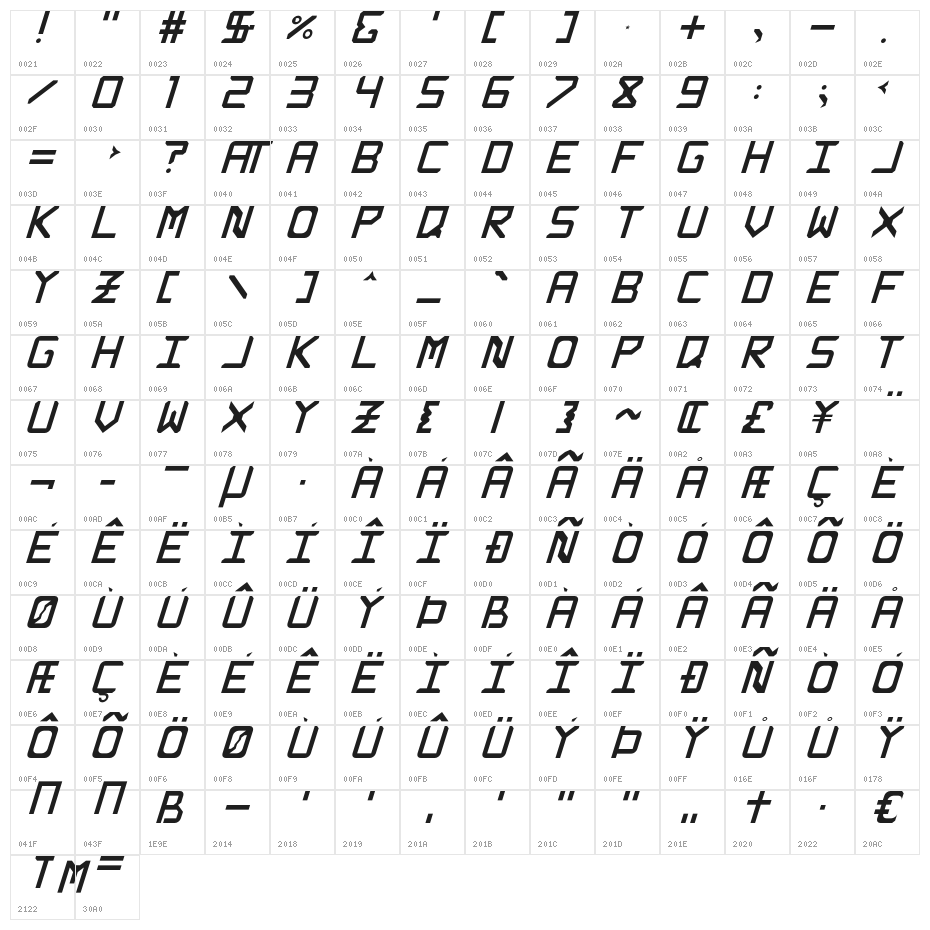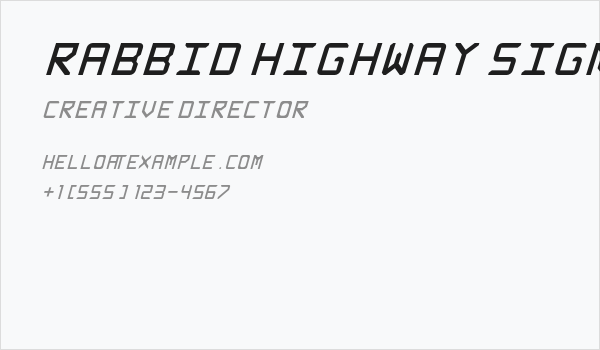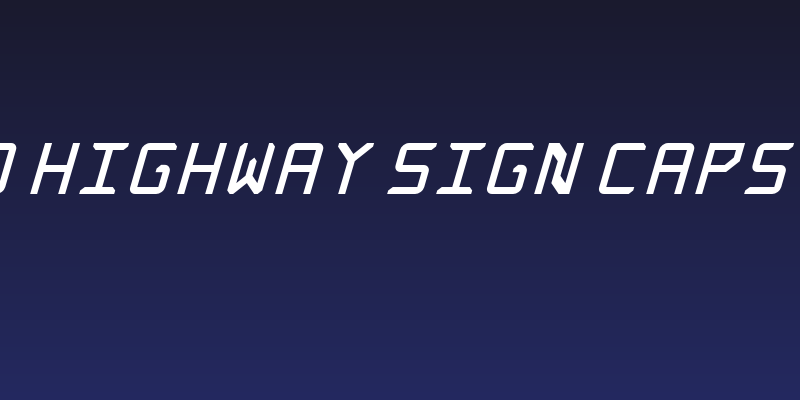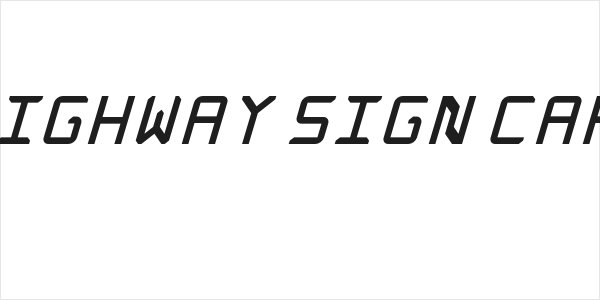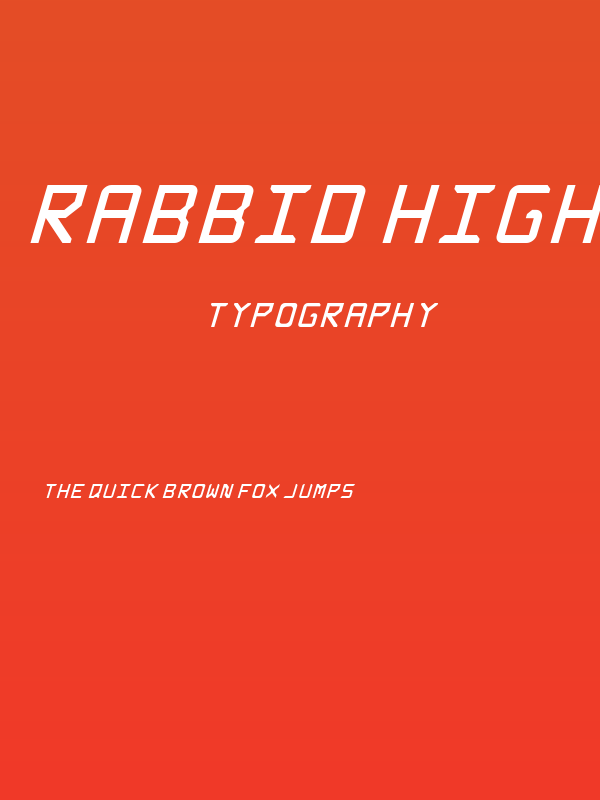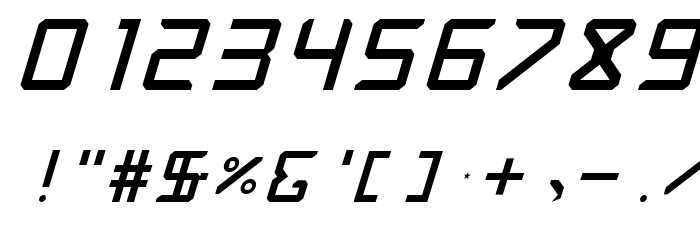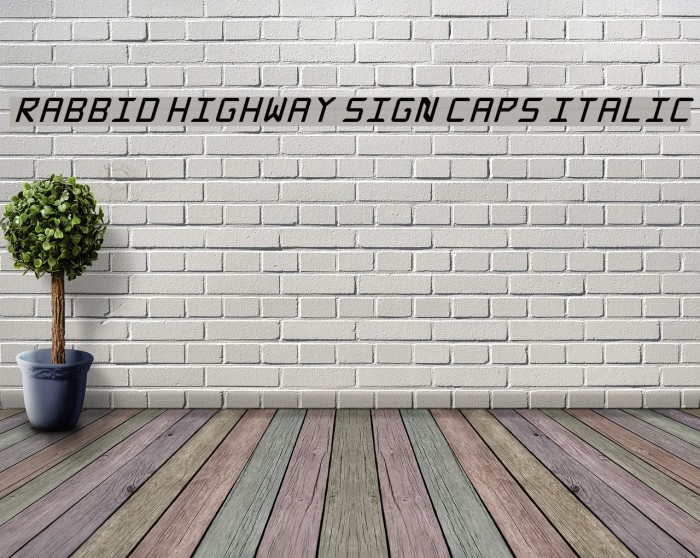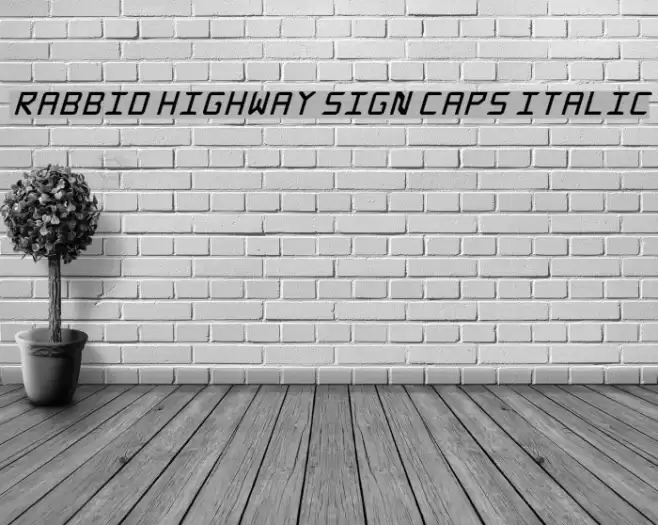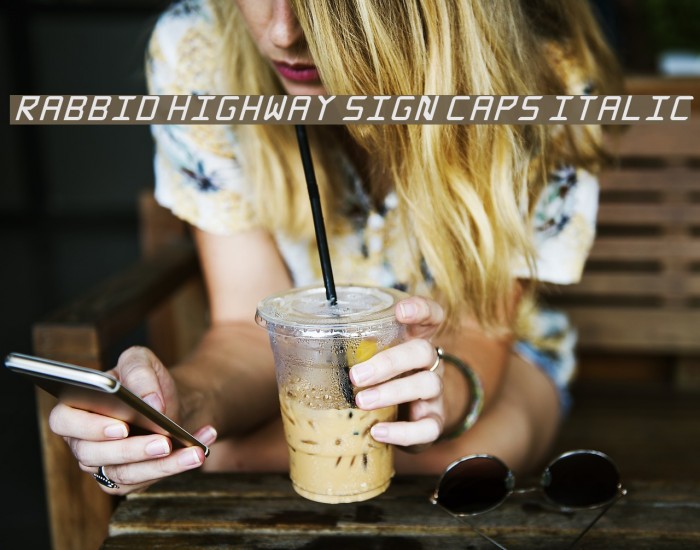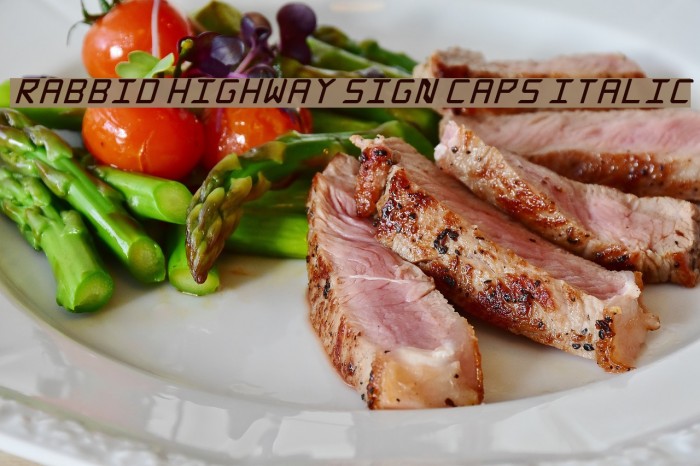
Rabbid Highway Sign Caps Italic Font
Rabbid Highway Sign Caps Italic Description
This font features a bold, italicized style with a modern and dynamic appearance. The characters are angular and slightly condensed, giving a sense of speed and movement. The uppercase letters are consistent in height, with sharp edges and a slanted orientation that enhances its italic nature. The numerals and special characters follow the same design principles, maintaining uniformity across the font. The overall look is clean and futuristic, making it suitable for attention-grabbing designs.
| Proposed Projects | Ideal for highway signage, sports branding, automotive designs, and dynamic advertising. |